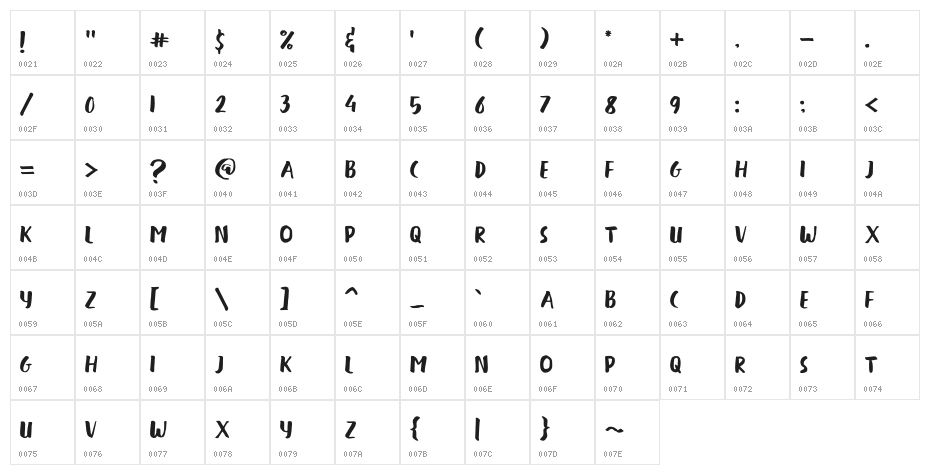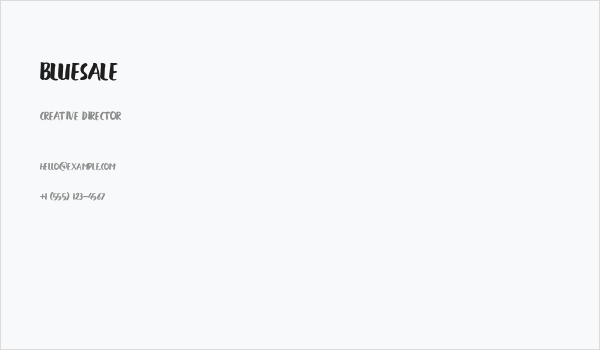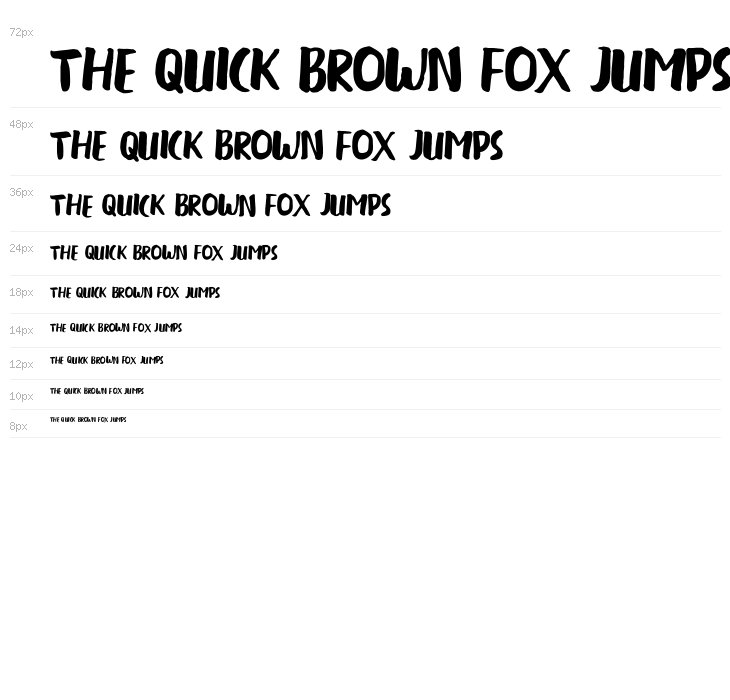
BLUESALE Font
BLUESALE Description
This font features a bold and expressive handwritten style, characterized by its thick strokes and dynamic curves. The letters have a slightly irregular baseline, adding to the casual and playful feel. The uppercase and lowercase letters maintain a consistent style, with rounded edges and a brush-like texture that suggests movement and energy. The numbers and special characters follow the same design principles, ensuring a cohesive look across all glyphs. This font is ideal for projects that require a personal touch or a creative flair.
| Proposed Projects | Ideal for branding, posters, invitations, and social media graphics that require a personal and creative touch. |